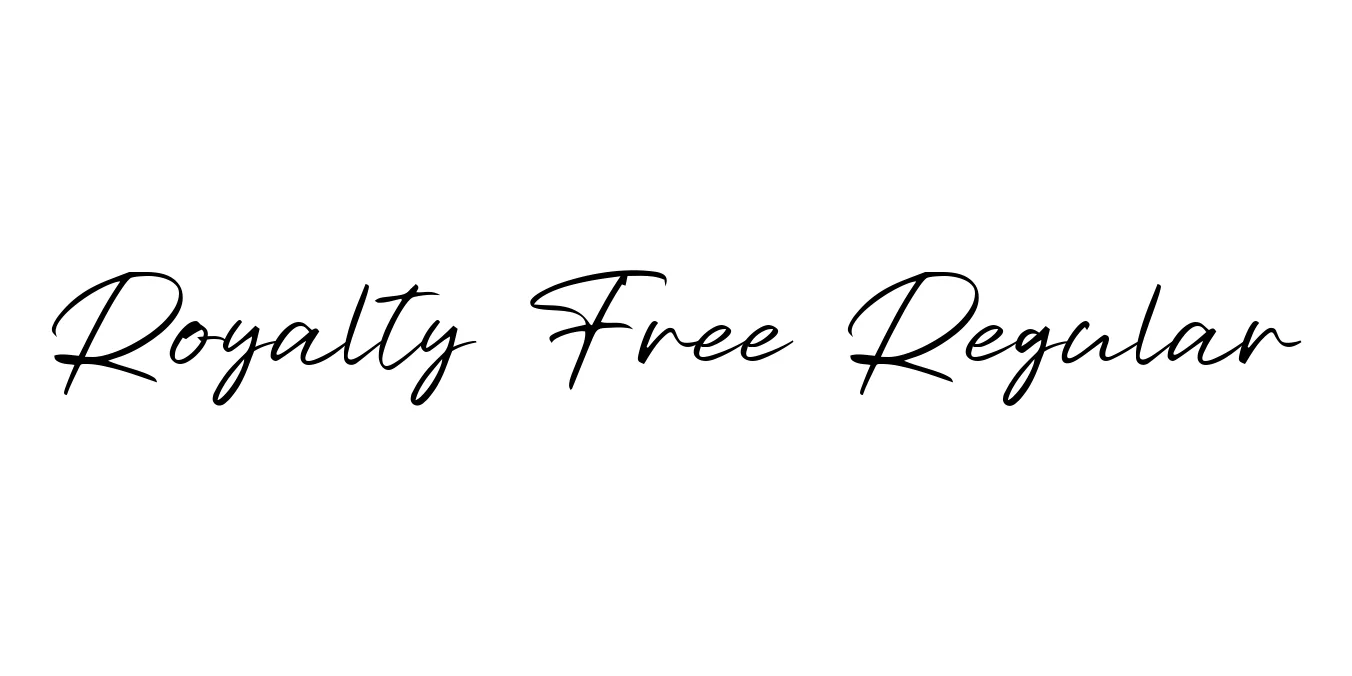
Royalty Free Regular
Royalty Free Regular is a sophisticated and fluid script typeface designed to bridge the gap between classic calligraphy and modern digital aesthetics. Its balanced weight and graceful ligatures make it an exceptional choice for designers seeking to add a touch of handcrafted elegance to their projects. The font features smooth, flowing strokes that ensure high legibility even at smaller sizes, making it versatile for both display and body text in creative layouts.
First introduced to provide a high-quality alternative for independent creators, this typeface has gained popularity in the branding and marketing sectors. Its clean lines and professional finish allow it to thrive in diverse environments, from high-end fashion editorials to casual lifestyle blogs. Whether used for a minimalist logo or a detailed invitation, Royalty Free Regular delivers a consistent and polished look that resonates with contemporary design trends.
Royalty Free Regular Best Uses
Ideal for creating unique and memorable brand identities.
Great for eye-catching quotes and high-engagement posts.
Adds a sophisticated touch to invitations and cards.
Effective for banners, hero images, and promotional graphics.